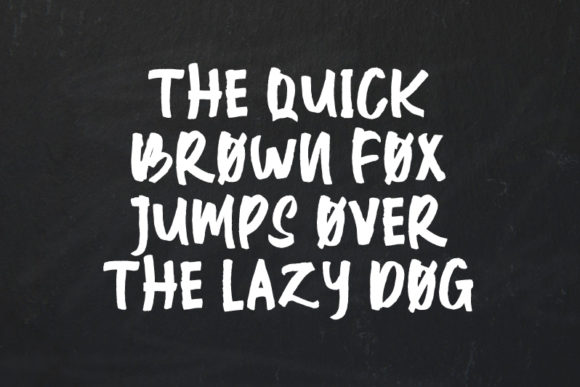
HomeScript FontsAll Caps Font Script Fonts All Caps Font FacebookXPinterestWhatsApp All Caps Font Poster 2 About All Caps Font AllCaps is a textured brush font with a cool vibe. It will add a rough twist to any creative idea! DOWNLOAD ON CREATIVE FABRICAThis font is sold and delivered by Creative Fabrica. Font Canyon may earn a commission if you buy through this link. People also explored Citrogen Font Smile Akrovich Font Celeb Font Signature Font Glenca Font Sallerha Font MultiType Lines Regular Bold Font Kagungan Font 338 0 TagsAll Caps Font Previous articleSwirly Kids FontNext articleWesttgonia Barneh Font LEAVE A REPLY Cancel reply Comment: Please enter your comment! Name:* Please enter your name here Email:* You have entered an incorrect email address! Please enter your email address here Website: Save my name, email, and website in this browser for the next time I comment. Personal Use Free Cheque Personal Use Free Read more about this font Feather Script Personal Use Free Read more about this font Lost Treasure Personal Use Free Read more about this font Bahjera Personal Use Free Read more about this font BLOG To increase your work productivity, choose the most readable fonts. In today's fast-paced work environment, where digital communication and information consumption are integral to our daily routines, the choice of fonts can significantly impact... Free vs Paid Fonts: Why Investing in Premium Fonts Is Worth It The 10 Best Handwriting Fonts to Add Personality to Your Designs How to Cut Any Font on Cricut: Convert a Font to SVG (Free)